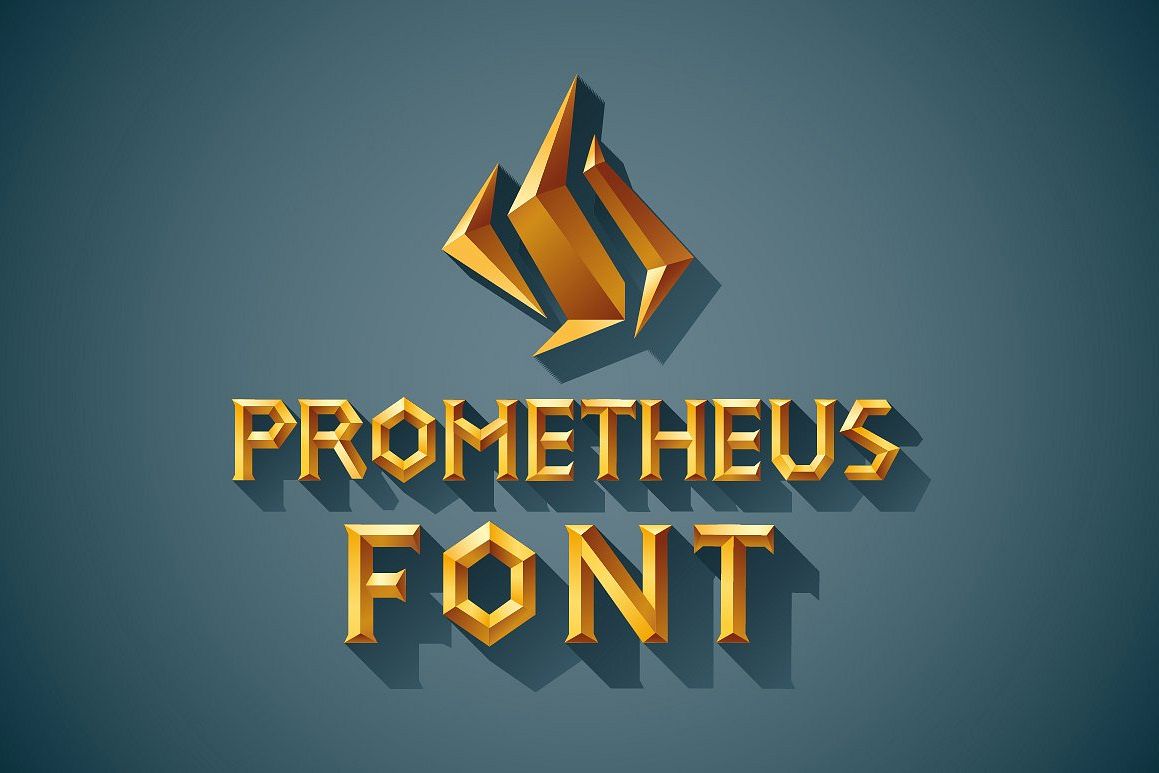
3D Font Set. Gold, wood, silver
This is a unique vector letters (typefaces) with exclusive typefaces.
Set of 5 different styles: Gold, Silver, Stone, Engraved Wood and Wood.